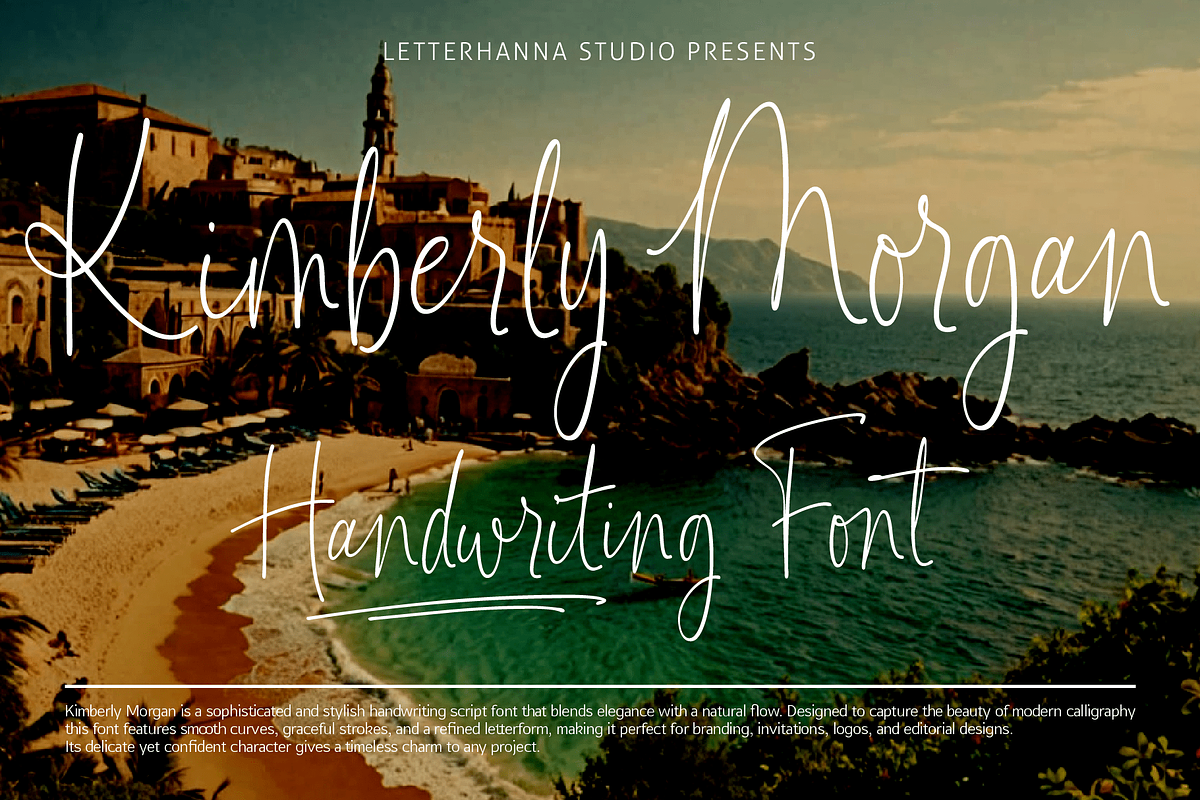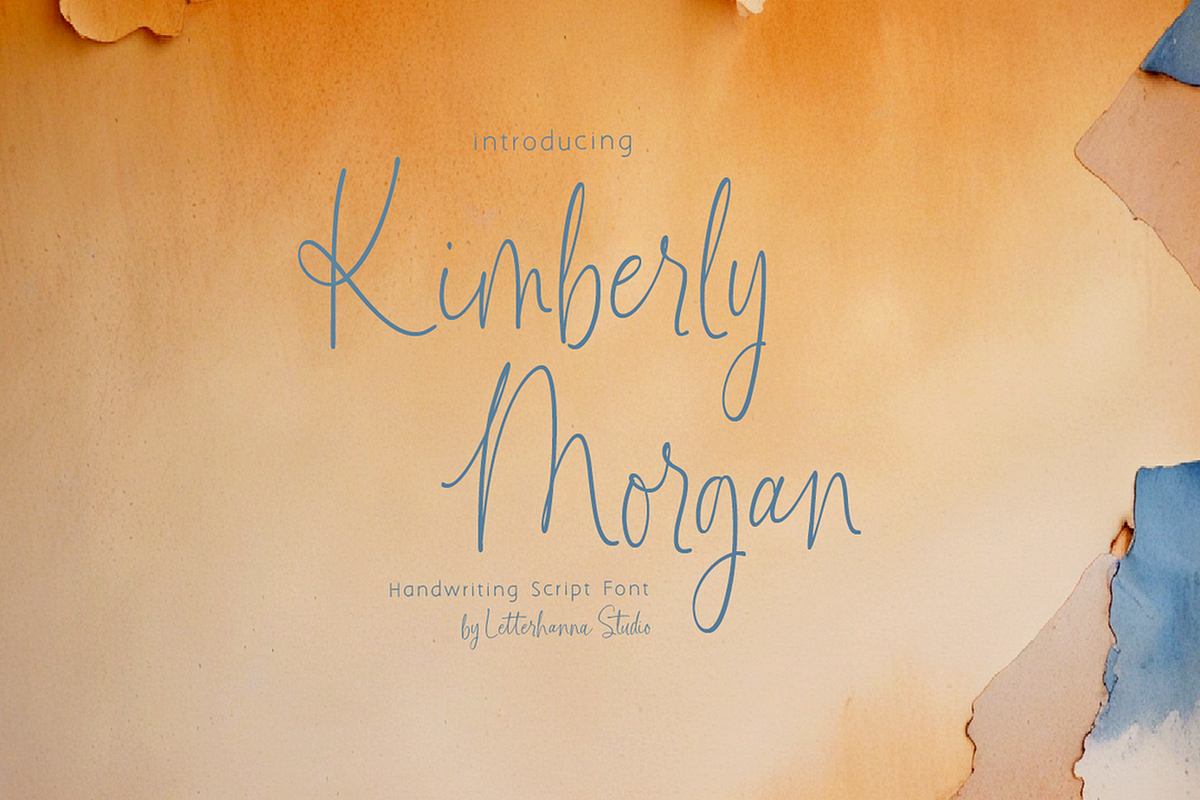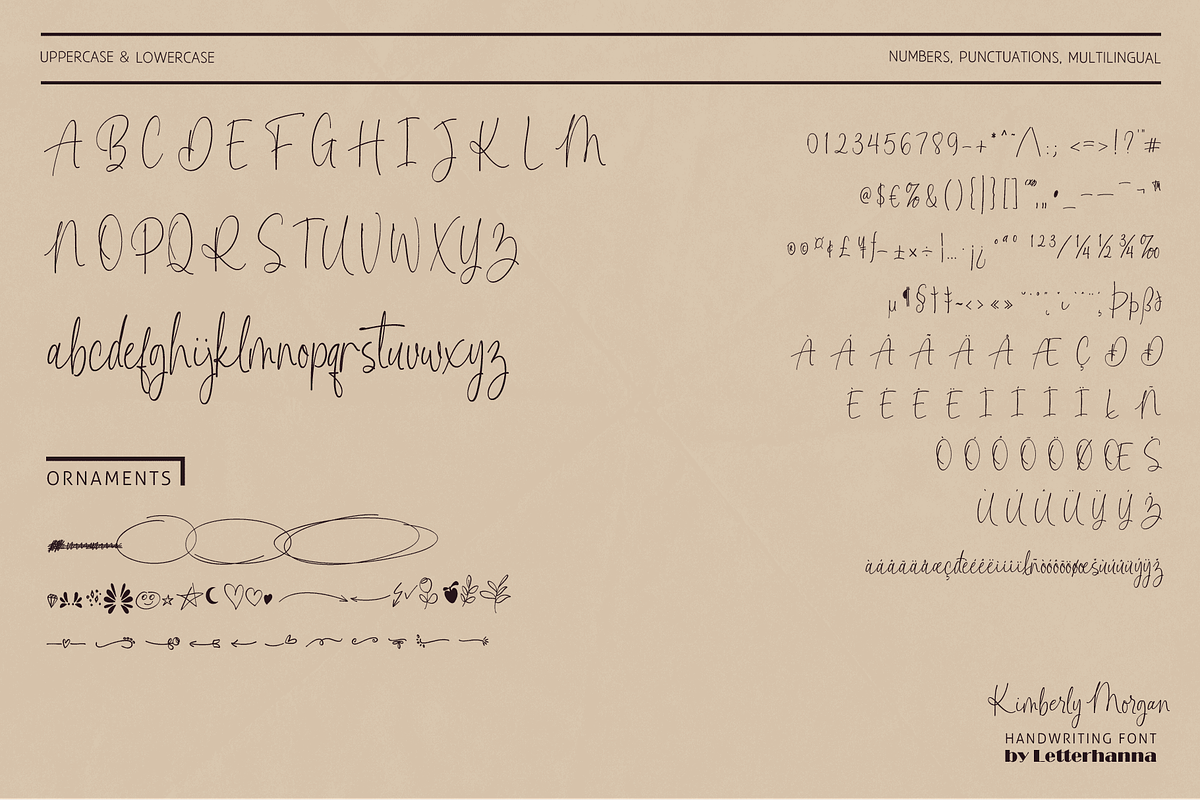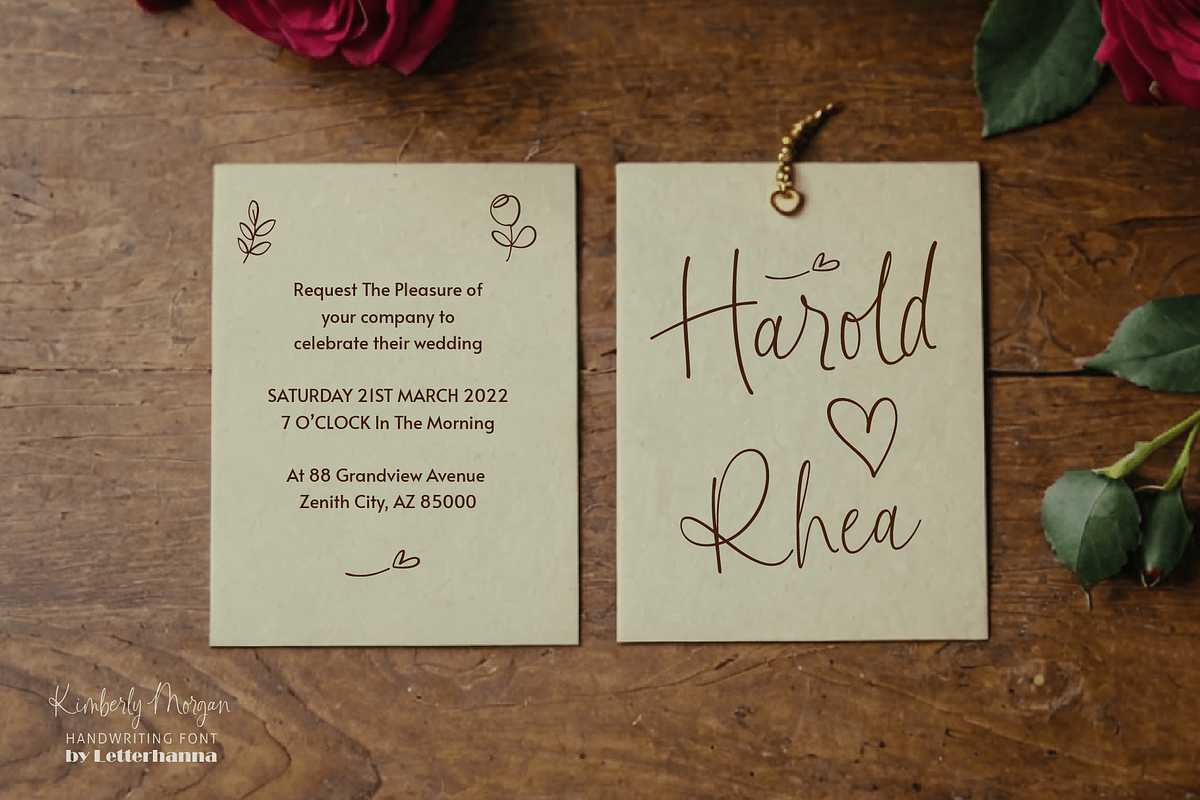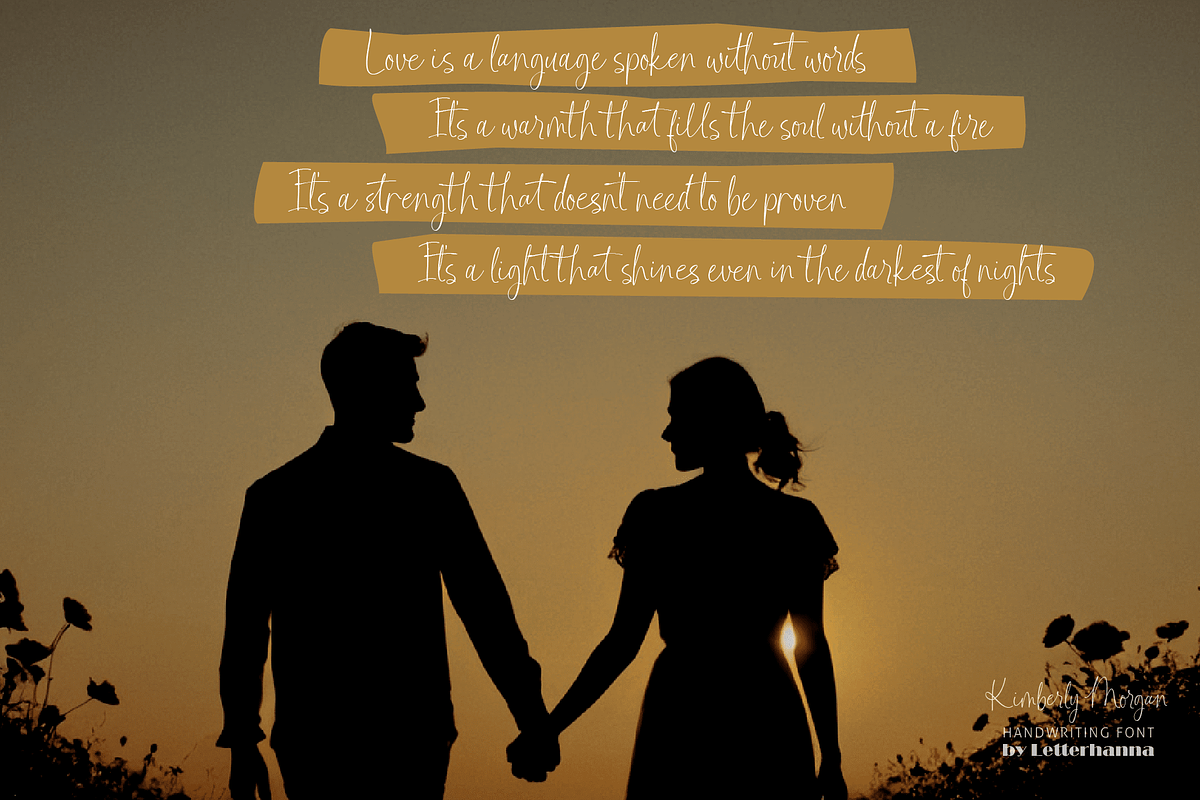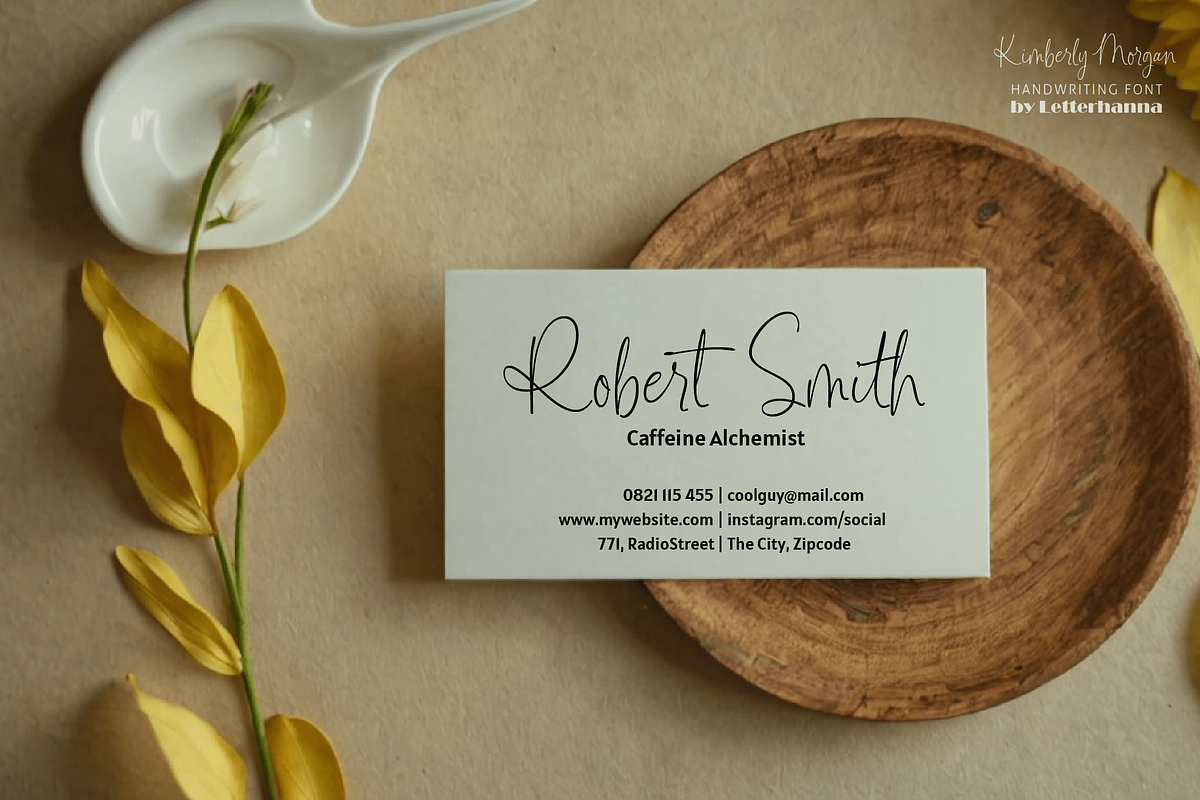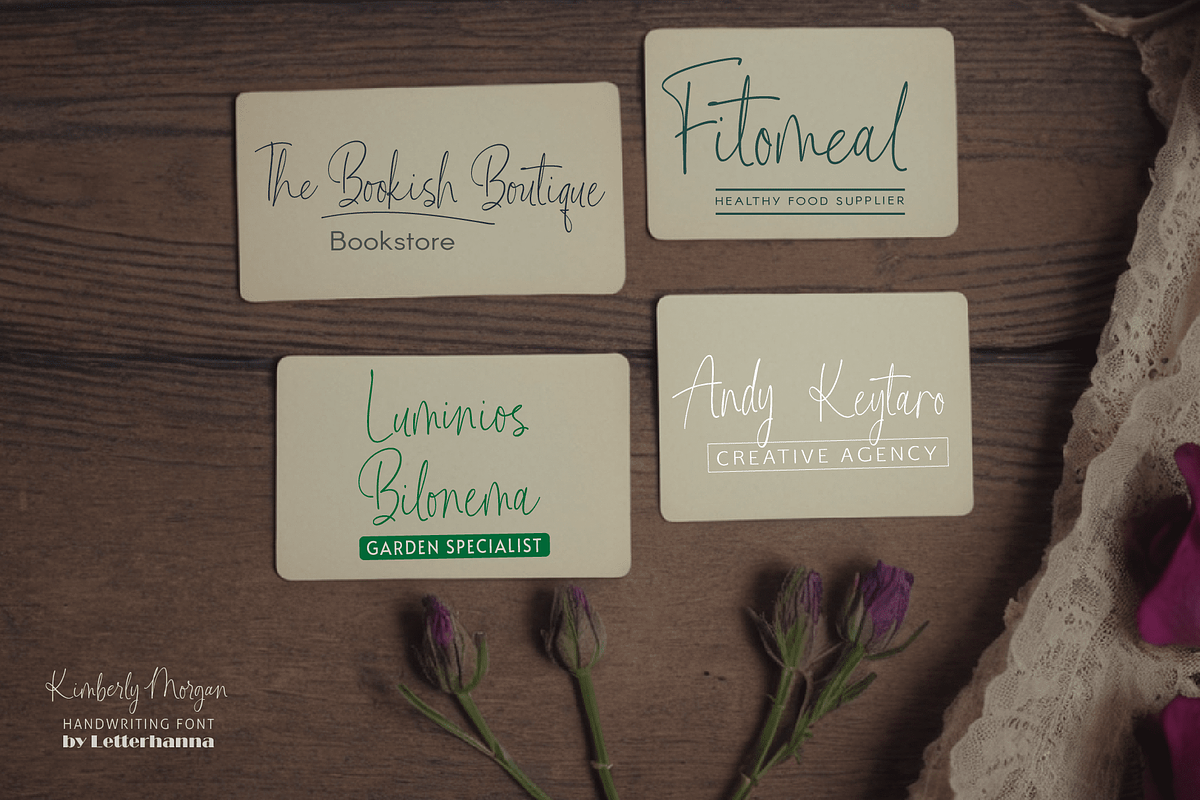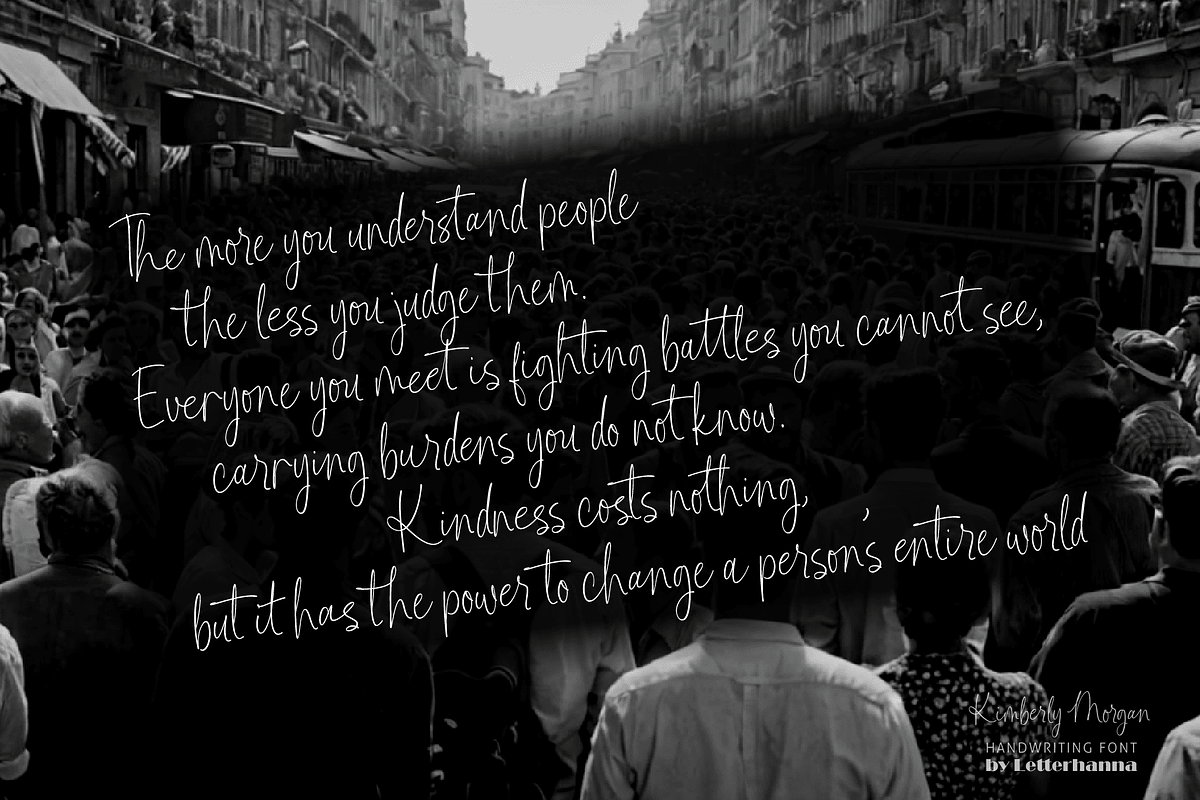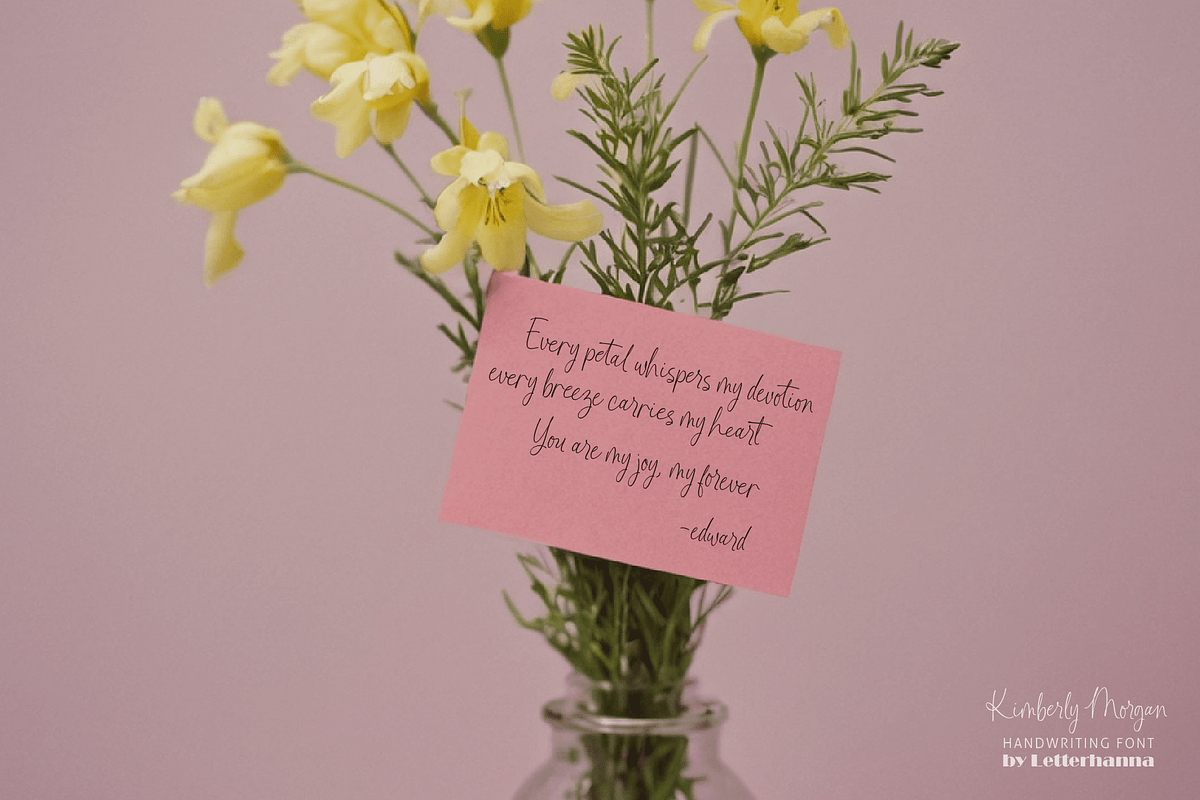
Kimberly Morgan Handwriting Font
Kimberly Morgan is a refined and elegant stylish handwriting script font that exudes sophistication and charm. With its smooth strokes and natural flow, this font is perfect for branding, invitations, logos, and more.
Designed for those who appreciate effortless beauty, Kimberly Morgan adds a custom and stylish touch to any project. Elevate your designs with its graceful and timeless appeal!
Easy Access to Glyphs and Swashes
Gain easy access to all alternate glyphs, swashes, ornaments, and underlines by simply using ligatures. You can try them out yourself in the font preview tool on our website, letterhanna.com.
Accessing Swashes and Ornaments
Underline Swashes: Use a hyphen symbol "-" followed by a number between 1 and 30. For example, type "-3", "-22", or "-17" to get various underline swashes. Head/Beginning Swashes: Use a dollar sign "$" followed by a number between 1 and 9. For example, type "$2" or "$8" to get different head/beginning swashes. Ornaments: Use an "at" symbol "@" followed by a number between 1 and 26. For example, type "@4" or "@13" to get different ornaments.
PUA Encoding for Ease of Use, which means you can access all the glyphs and swashes with ease!
Uppercase and lowercase letters Numbers and punctuation marks Multilingual support Ligatures Underline swashes Ornaments Easy access to swashes using ligatures